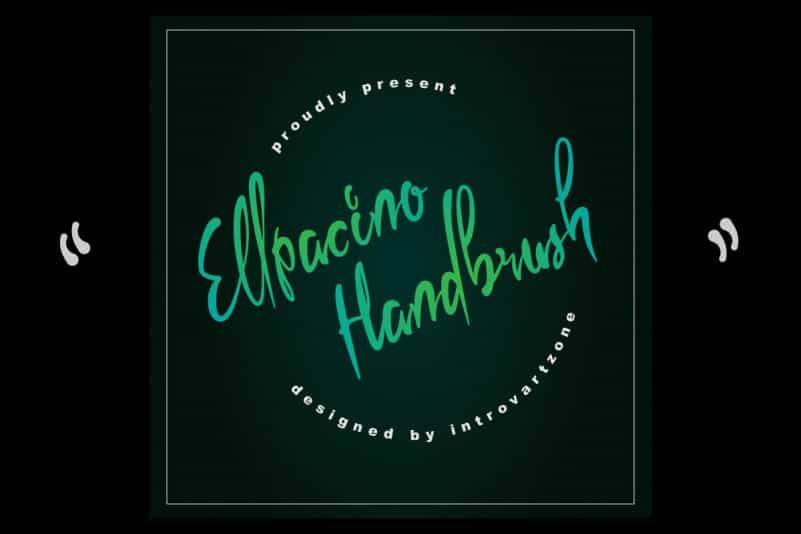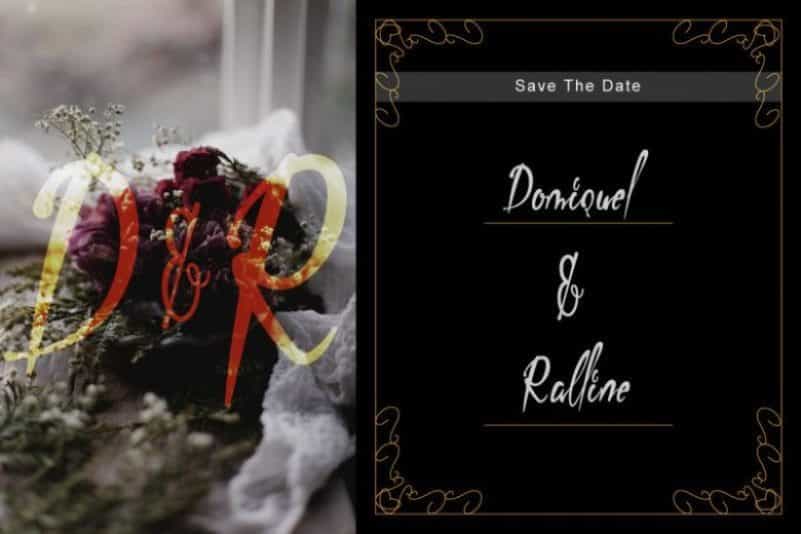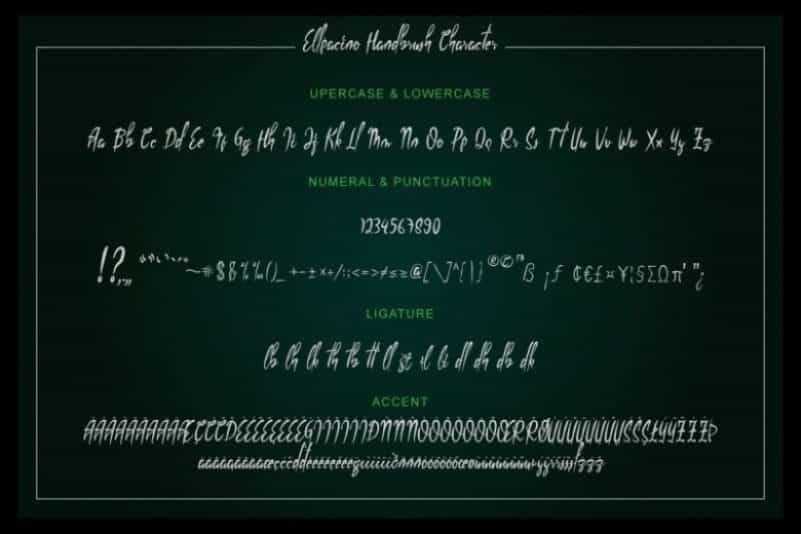
Discover Ellpacino Handbrush Font, part of the Brush Handwritten collection—a versatile and unique font perfect for adding a personal touch to your projects. Download it for free and enjoy crafting designs with style, from invitations to social media posts. This font is available exclusively for personal use, giving you the freedom to create without limits. Unlock your creativity with Ellpacino Handbrush Font today!
Introducing our newest product : Ellpacino Handbrush Font! It is a typeface that has bold, script-like ligatures and different accents to match your needs. Ellpacino Handbrush is designed for different uses such as the design of packaging products, printed products, invitations, business cards and even branding.